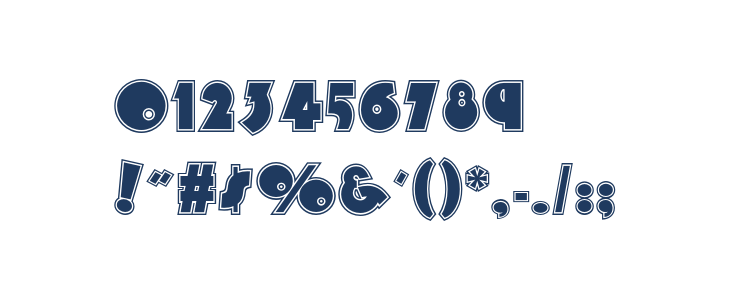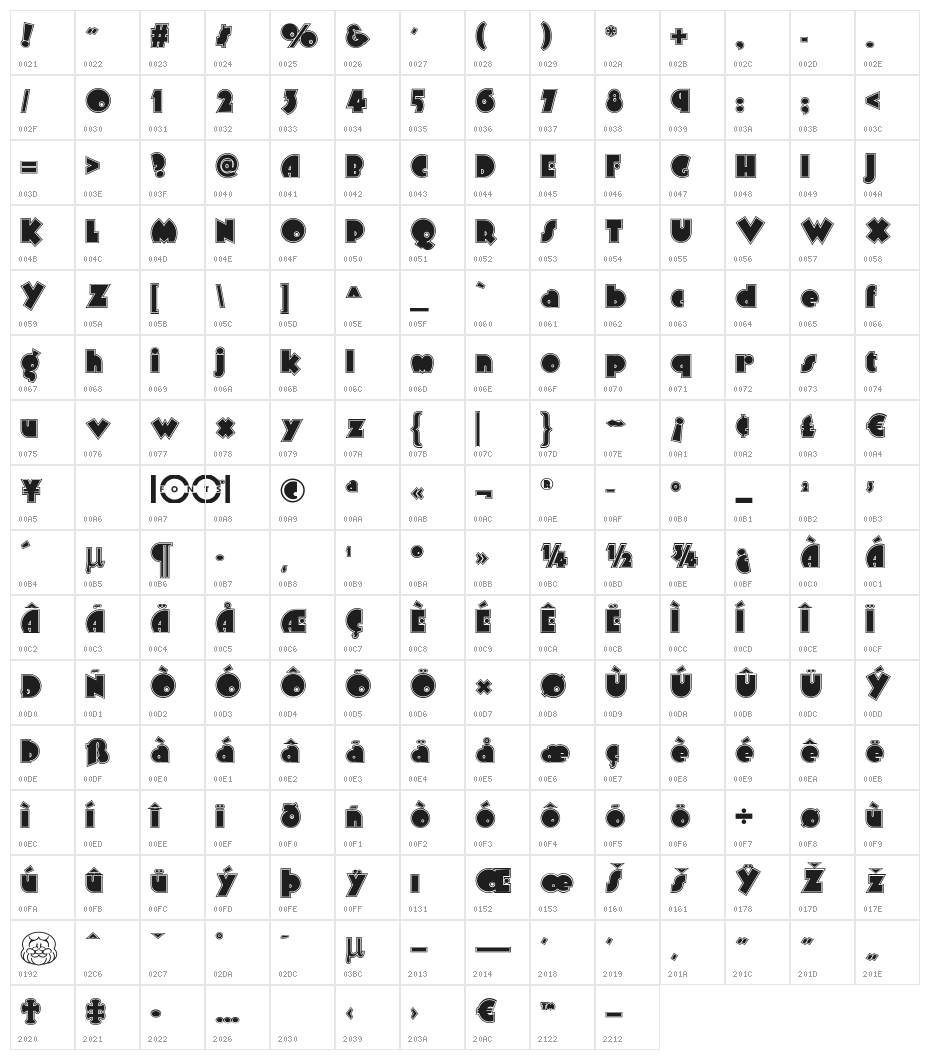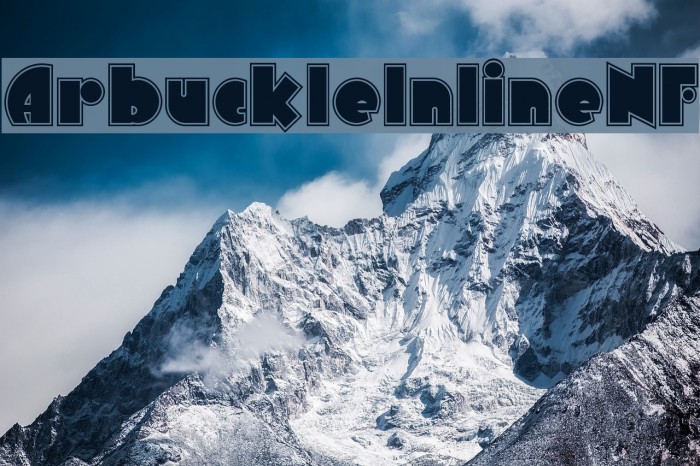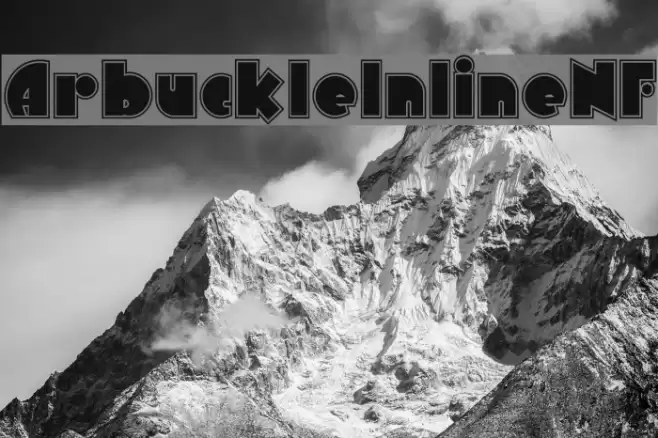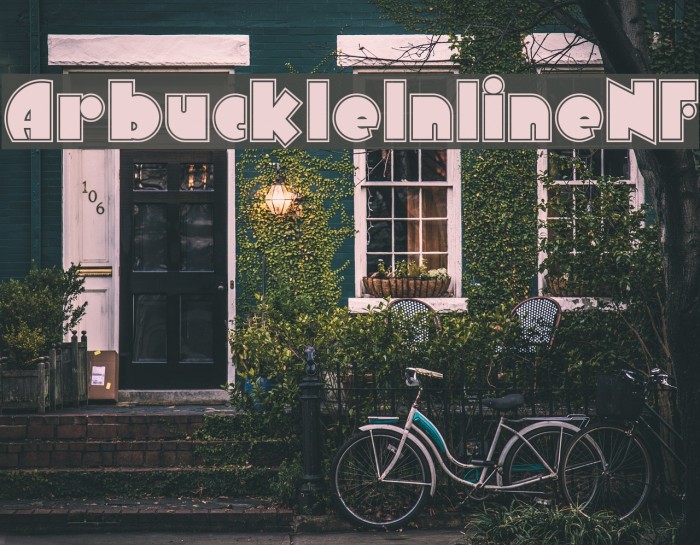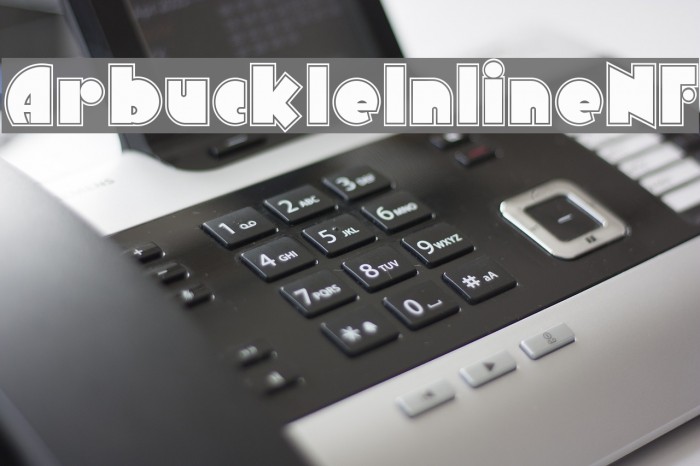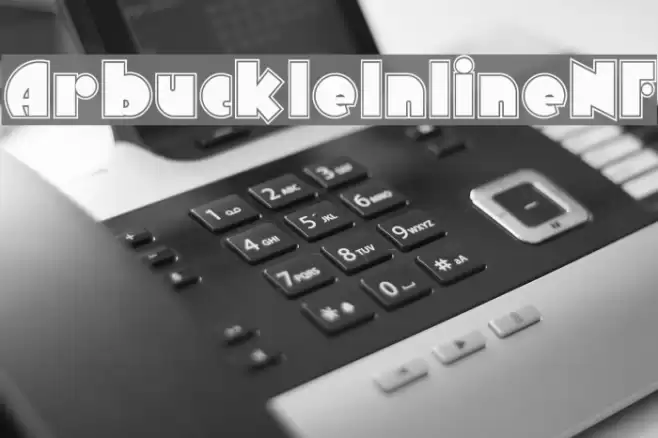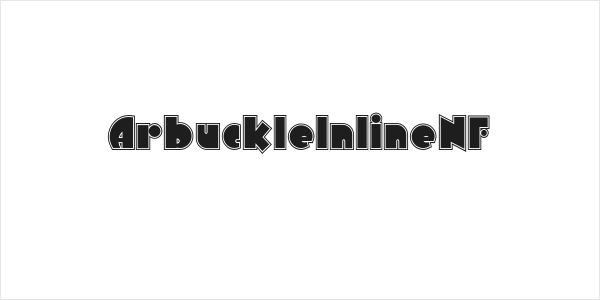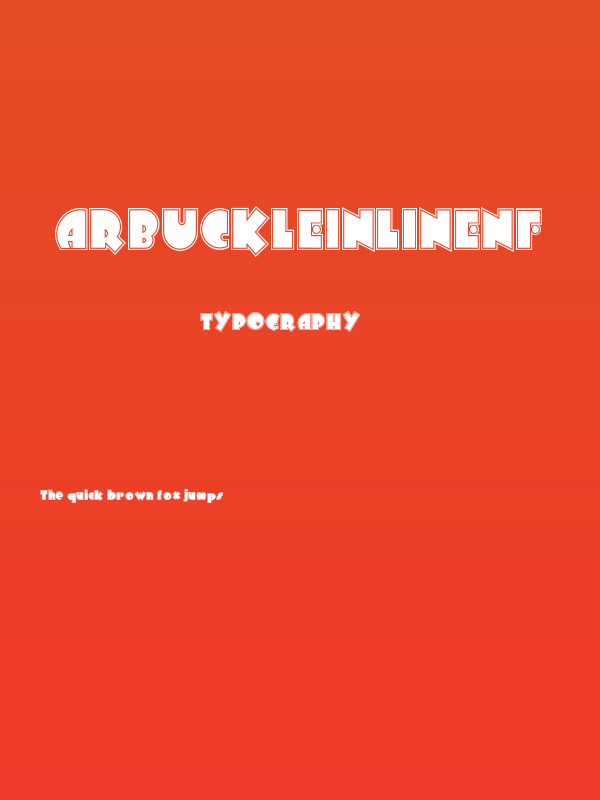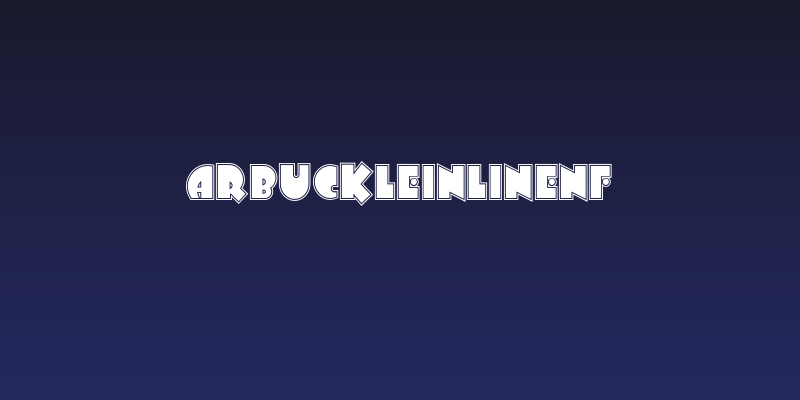
ArbuckleInlineNF Font
ArbuckleInlineNF Description
This font features a bold and striking design with a strong inline style that creates a sense of depth and dimension. The characters are heavily stylized with thick, blocky forms and a consistent inline cut through each letter, adding a unique visual interest. The uppercase and lowercase letters maintain a cohesive look, with rounded edges and geometric shapes that give it a playful yet assertive appearance. The numerals and special characters follow the same design principles, ensuring uniformity across all glyphs. This font is ideal for making a bold statement in any design project.